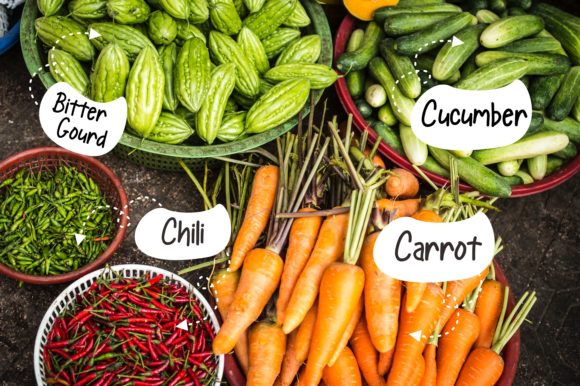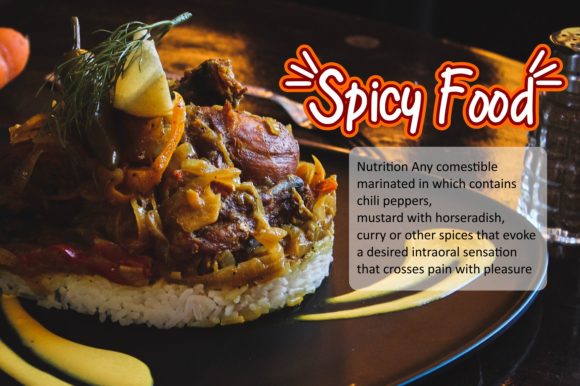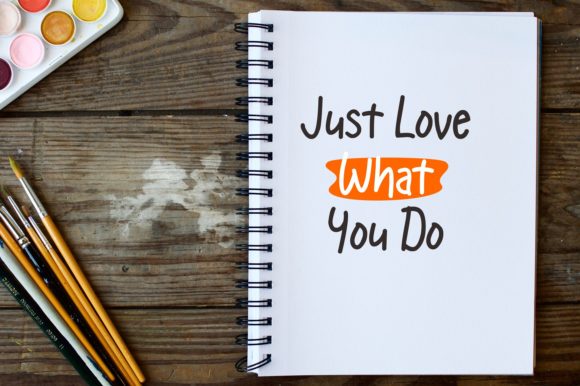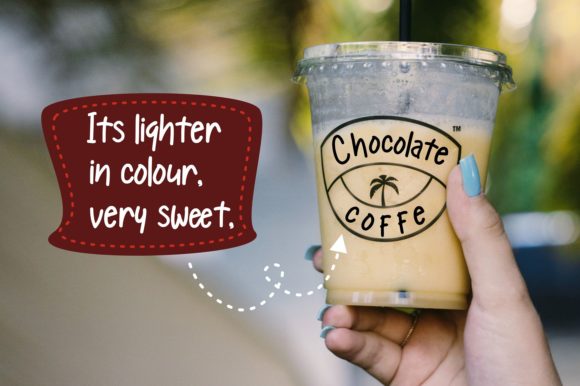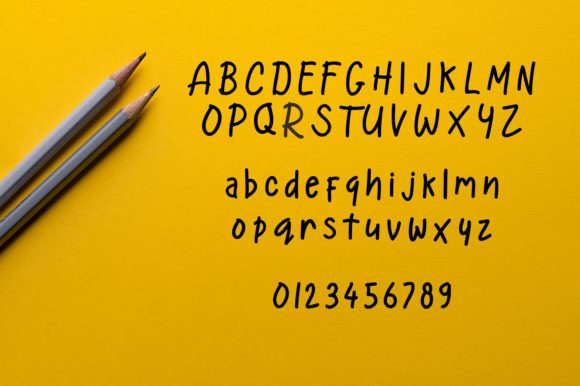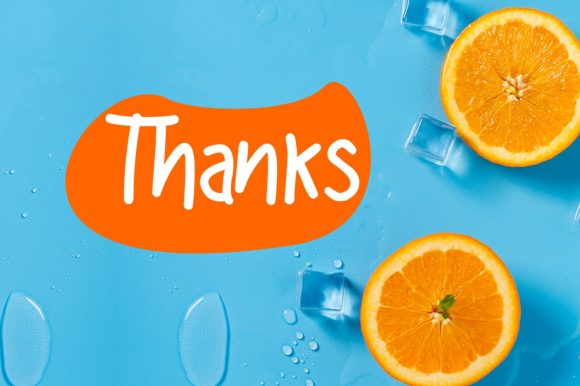
Cold Orange Font: A Playful and Adorable Display Font for Your Design Projects
Are you looking for a font that can add a playful and childlike touch to your design projects? Look no further than Cold Orange Font! This sweet and incredibly cute display font is perfect for designers and crafters who want to create fun and engaging designs that appeal to a wide range of audiences.
What is Cold Orange Font?
Cold Orange Playful is a display font that features a unique and charming design. Its playful and whimsical style makes it perfect for use in a variety of design projects, from children’s books and educational materials to branding and advertising campaigns. The font’s sweet and innocent look is sure to capture the attention of your audience and leave a lasting impression.
Key Features of Cold Orange Font
- Playful and Childlike Design: Cold Orange Font features a playful and childlike design that’s perfect for creating fun and engaging designs.
- Unique and Charming Style: The font’s unique and charming style sets it apart from other display fonts and makes it perfect for use in a variety of design projects.
- Highly Readable: Despite its playful design, Cold Orange Font is highly readable, making it perfect for use in both digital and print designs.
- Versatile: Cold Orange Font is a versatile font that can be used in a wide range of design projects, from children’s books and educational materials to branding and advertising campaigns.
Uses of Cold Orange Font
Cold Orange Font is a versatile font that can be used in a wide range of design projects, including:
- Children’s Books and Educational Materials: The font’s playful and childlike design makes it perfect for use in children’s books and educational materials.
- Branding and Advertising Campaigns: Cold Orange Font can be used to create fun and engaging branding and advertising campaigns that appeal to a wide range of audiences.
- Stationery and Invitations: The font’s sweet and innocent look makes it perfect for use in stationery and invitations.
- Digital Designs: Cold Orange Font can be used in a wide range of digital designs, from social media graphics and website headers to email newsletters and online advertisements.
Tips for Using Cold Orange Font
Here are a few tips for using Cold Orange Font in your design projects:
- Use it as a Display Font: Cold Orange Font is a display font, so it’s best used as a headline or title font.
- Pair it with a Simple Font: To create visual interest, pair Cold Orange Font with a simple font.
- Experiment with Colors: Cold Orange Font looks great in a variety of colors, so don’t be afraid to experiment and find the perfect color for your design.
Cold Orange Font is a playful and adorable display font that’s perfect for designers and crafters who want to add a playful and childlike touch to their design projects. Its unique and charming design, highly readable style, and versatility make it a great choice for a wide range of design projects. Whether you’re creating children’s books and educational materials, branding and advertising campaigns, or digital designs, Cold Orange Font is sure to capture the attention of your audience and leave a lasting impression.